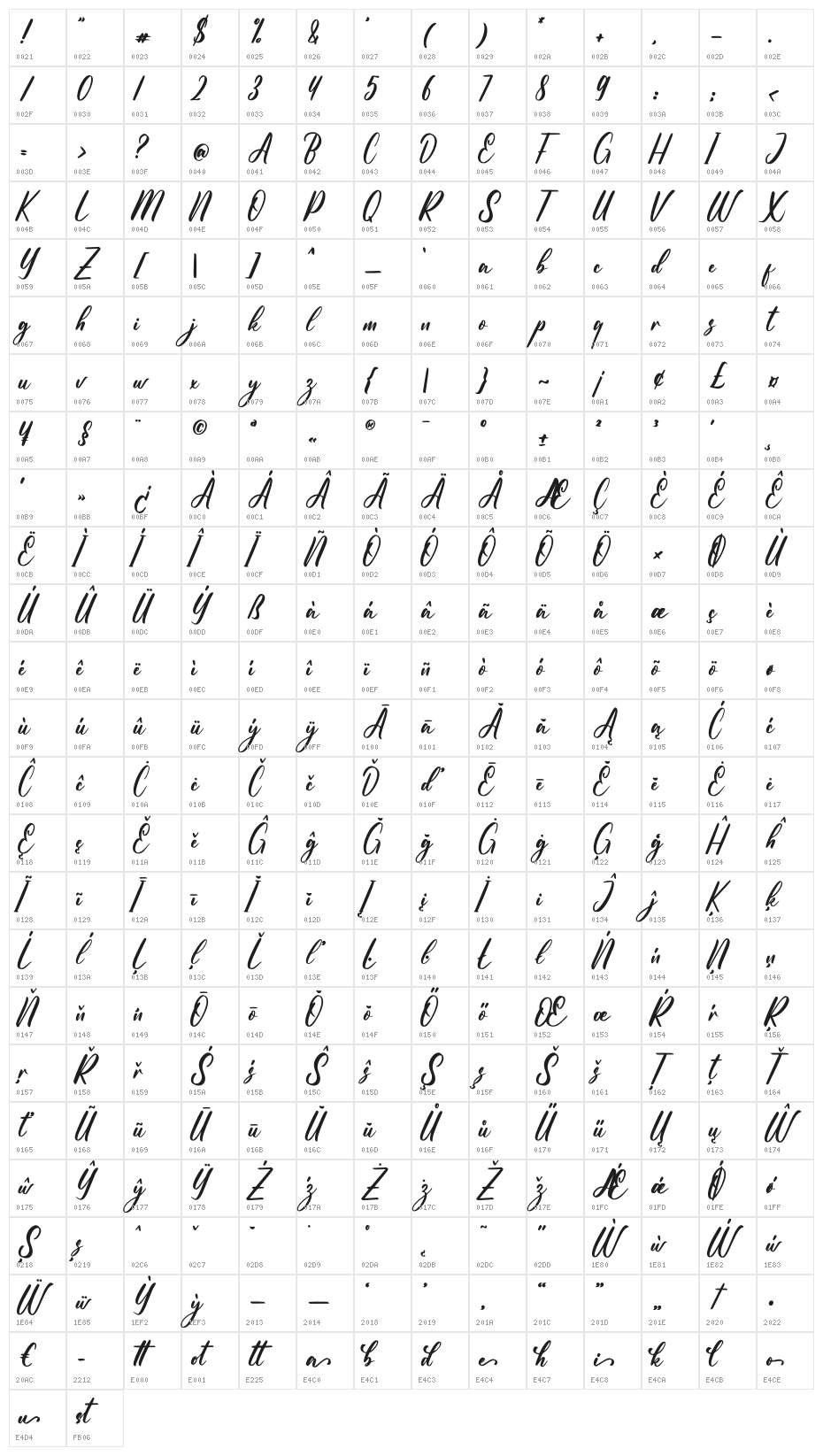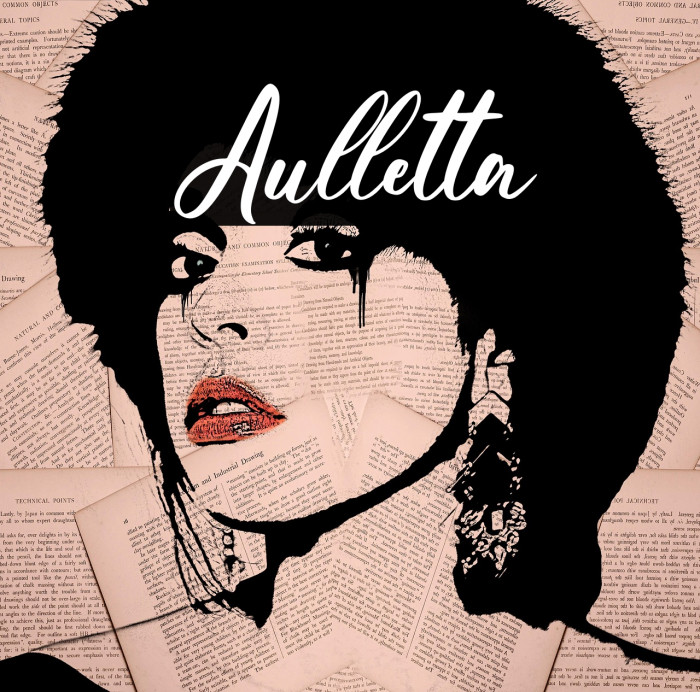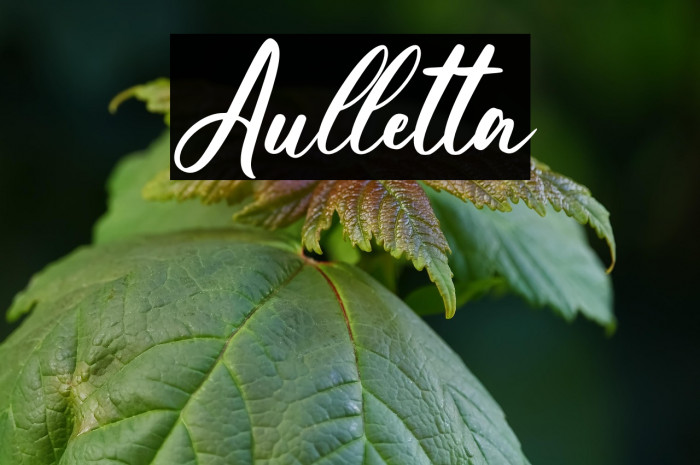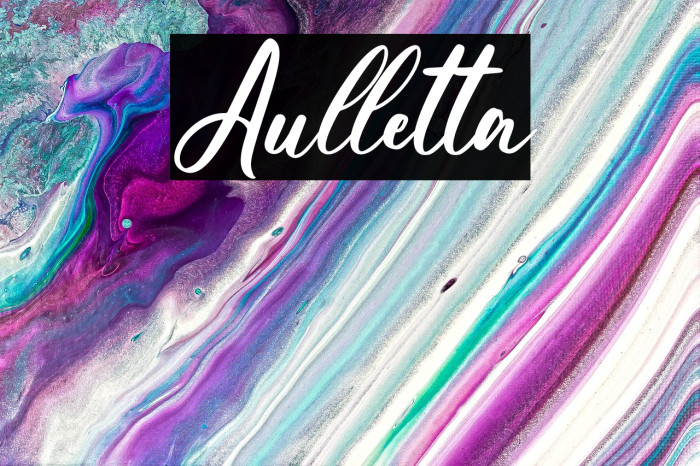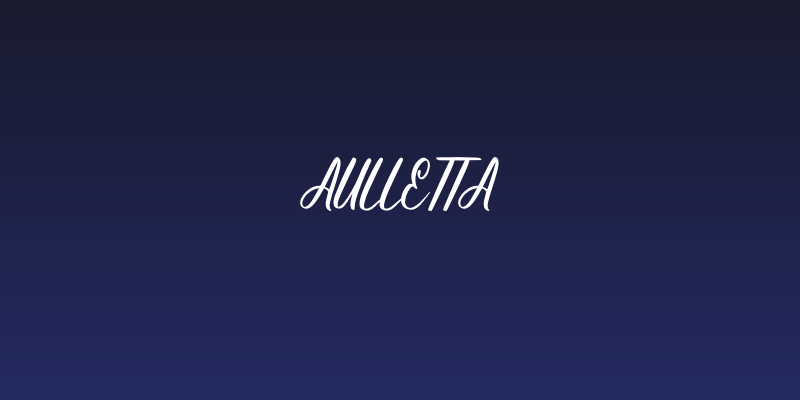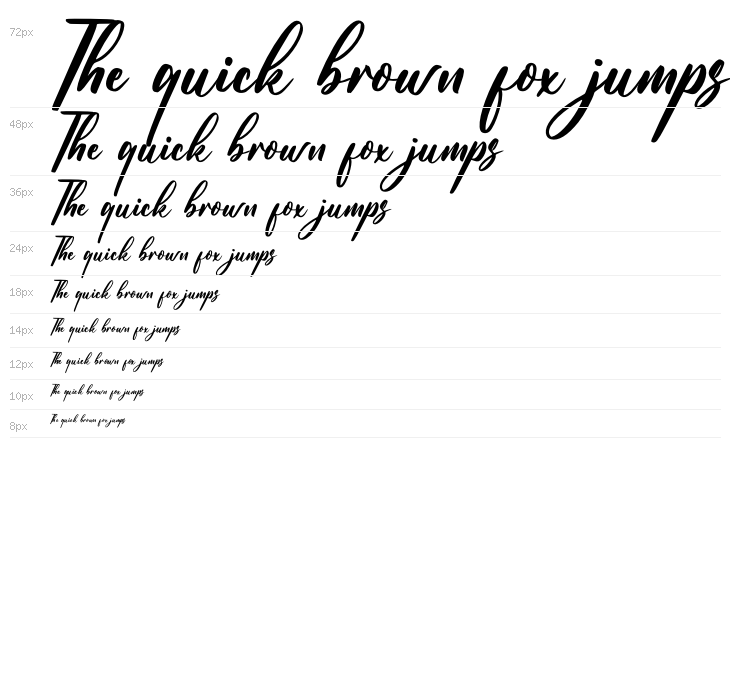
Aulletta Font
Aulletta Description
This font features a dynamic and flowing script style, characterized by its elegant and cursive letterforms. The uppercase letters are bold and sweeping, with a sense of movement and flair. The lowercase letters maintain a consistent flow, with smooth connections between characters, enhancing its handwritten appearance. The numerals are equally stylish, matching the overall aesthetic with their curvaceous forms. Special characters are designed with the same attention to detail, ensuring a cohesive look across all glyphs. This font exudes a sense of sophistication and creativity, making it suitable for a variety of design applications.